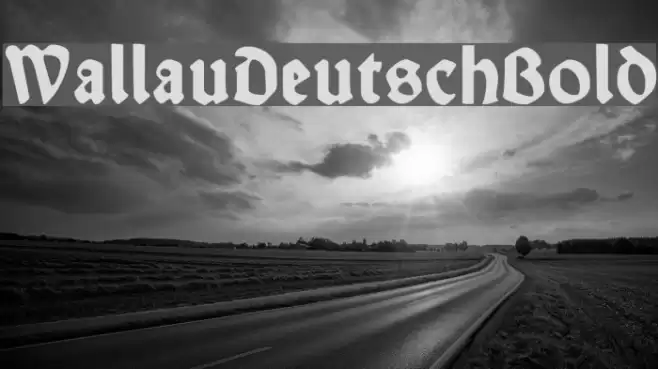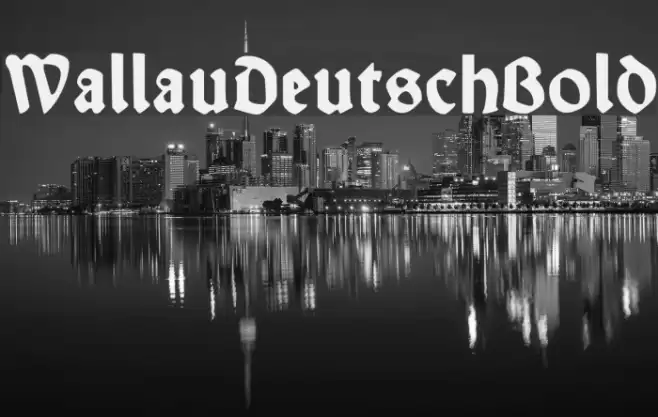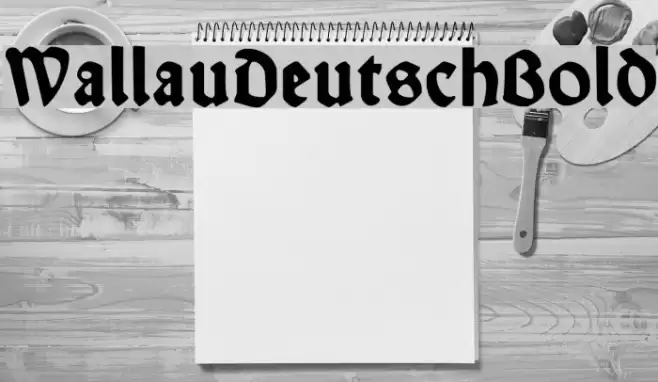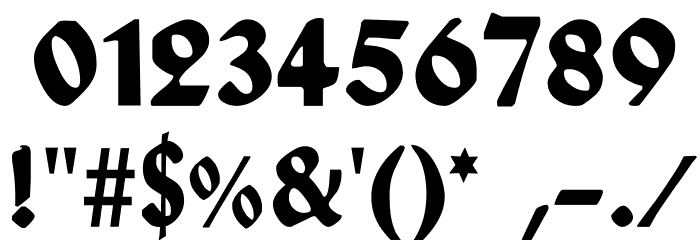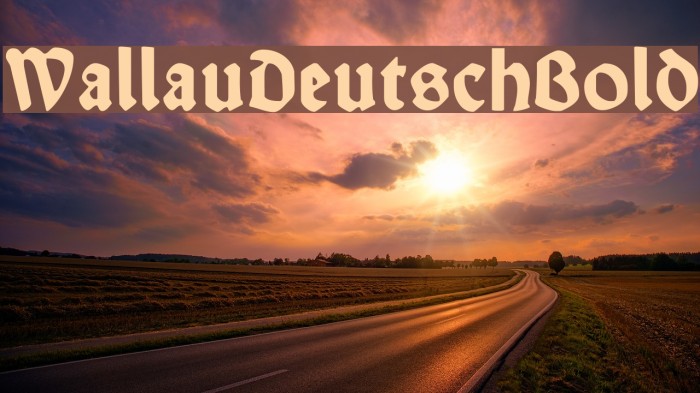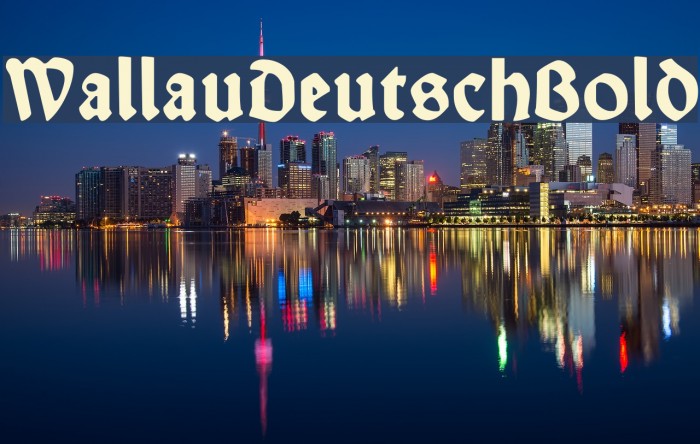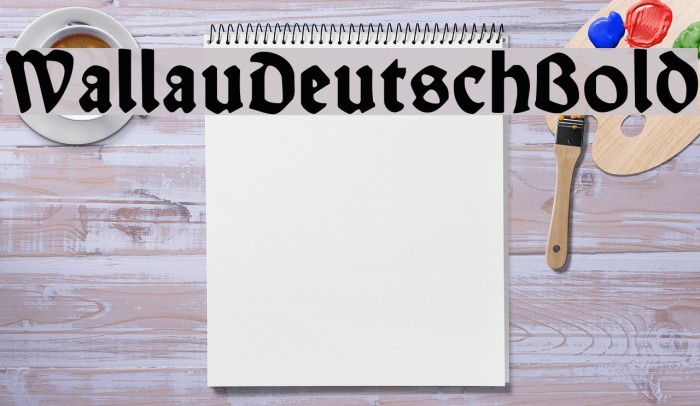
WallauDeutsch-Bold Font
WallauDeutsch-Bold Description
This font exhibits a bold and striking Blackletter style, characterized by its sharp, angular lines and dramatic strokes. The uppercase letters are particularly ornate, with intricate details that evoke a sense of historical elegance. The lowercase letters maintain the same boldness, offering a consistent visual weight across the alphabet. The numerals are equally robust, ensuring readability while maintaining the decorative style. Special characters are designed to complement the overall aesthetic, making them suitable for a variety of uses. This font's distinct appearance makes it ideal for projects that require a touch of tradition and sophistication.
A bold Blackletter font with sharp, angular lines and a historical elegance from Uncategorized fonts.
- Proposed Projects: Ideal for vintage-themed designs, branding for luxury products, historical publications, or decorative signage.
- Overall Style: Vintage
- Use Case: Logos, Headlines, Decorative text